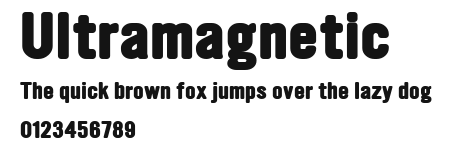
• Font Name: Ultramagnetic
• Font Style: ExtraBold
• Font ID: Ultramagnetic ExtraBold
• Full Font Name: Ultramagnetic ExtraBold
• Designer: Michael Cina
• Manufacturer: YouWorkForThem
About Ultramagnetic.ttf
Ultramagnetic.ttf is a modern, elegant sans-serif font designed for ultimate readability and visual harmony. Perfect for branding, headlines, web design, and print materials.